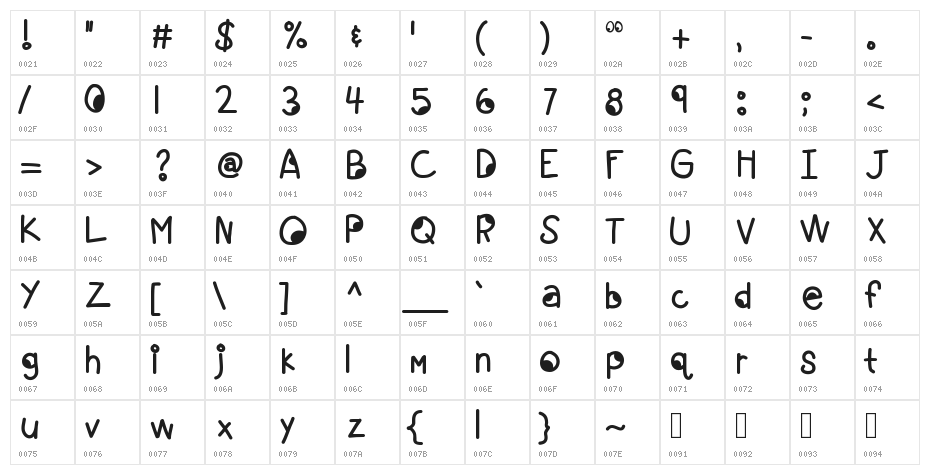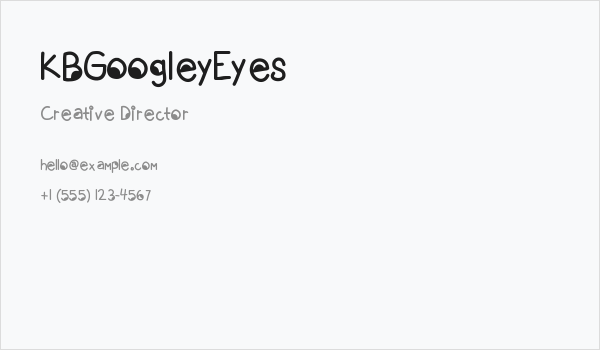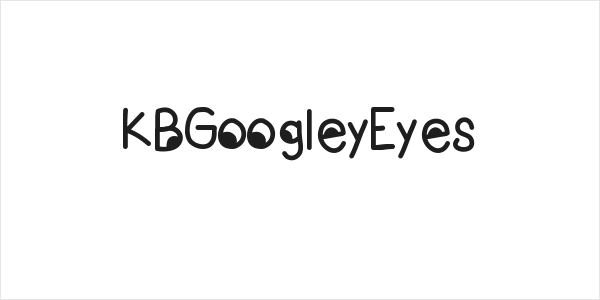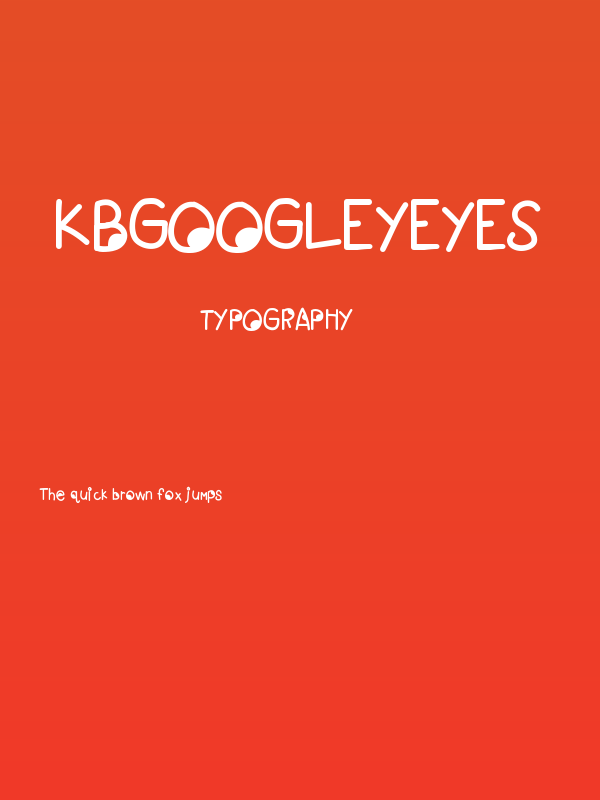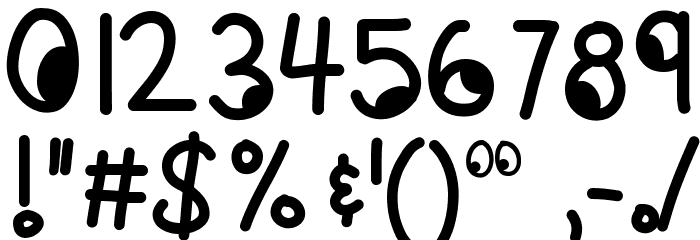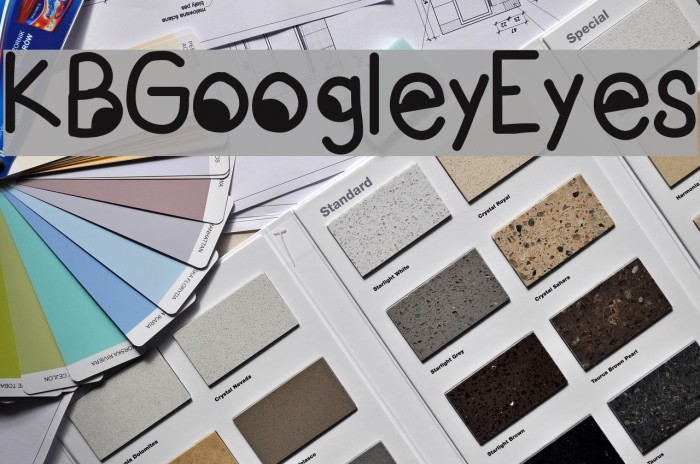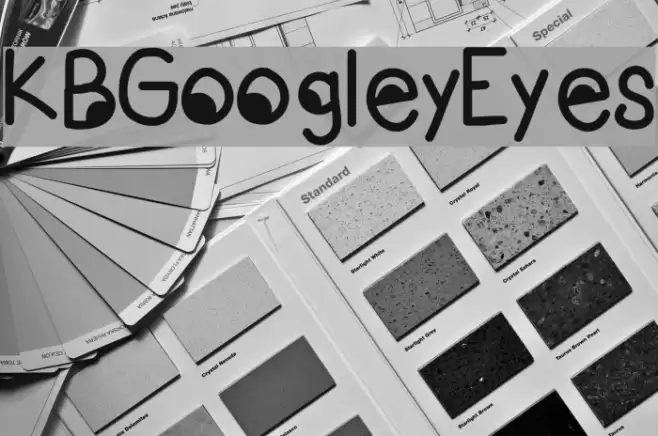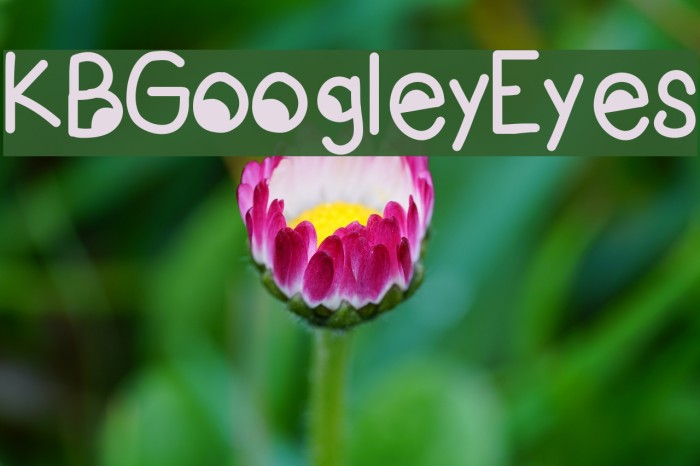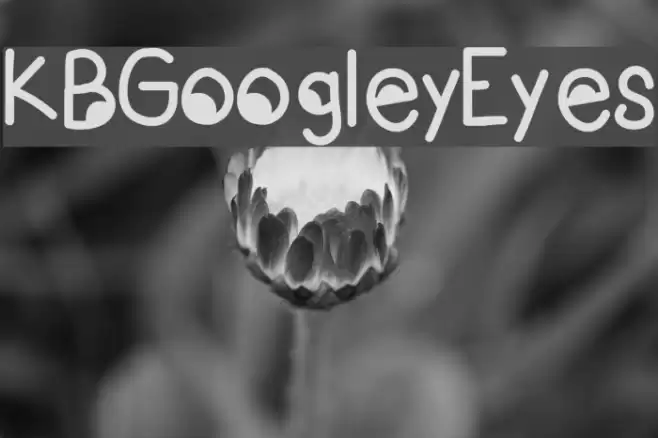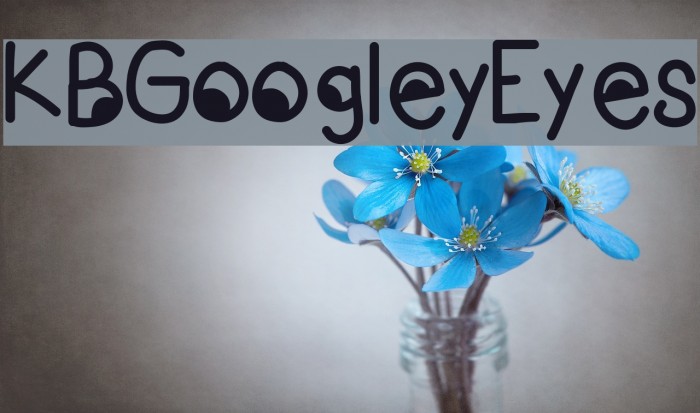
KBGoogleyEyes Font
KBGoogleyEyes Description
This playful and whimsical font features a unique, hand-drawn style with exaggerated, rounded forms that give it a lively and animated appearance. The letters are bold and slightly irregular, adding a sense of fun and creativity. The uppercase and lowercase characters maintain a consistent style, with some letters featuring distinctive loops and curves. Numbers and special characters are equally expressive, with bold strokes and quirky shapes. This font's energetic and informal design makes it suitable for projects that aim to capture attention and convey a sense of joy and spontaneity.